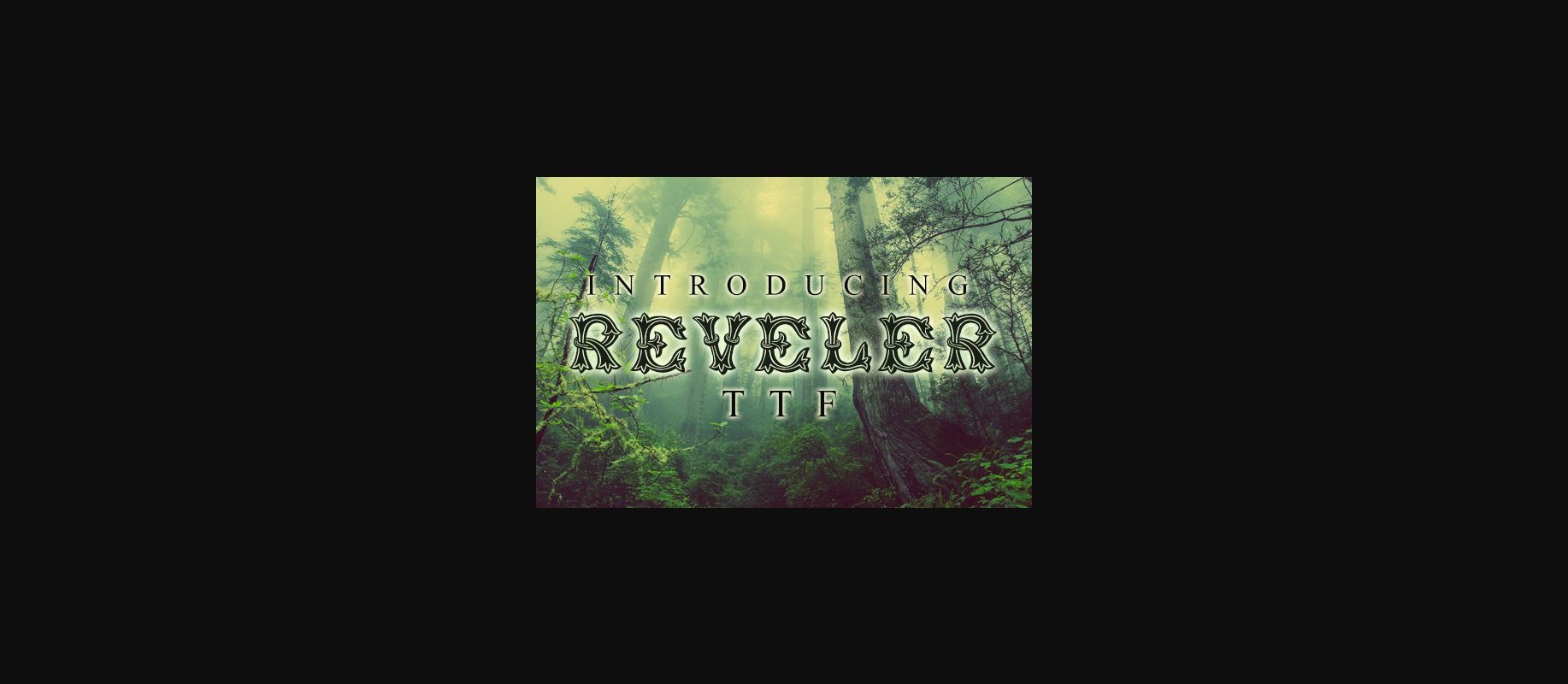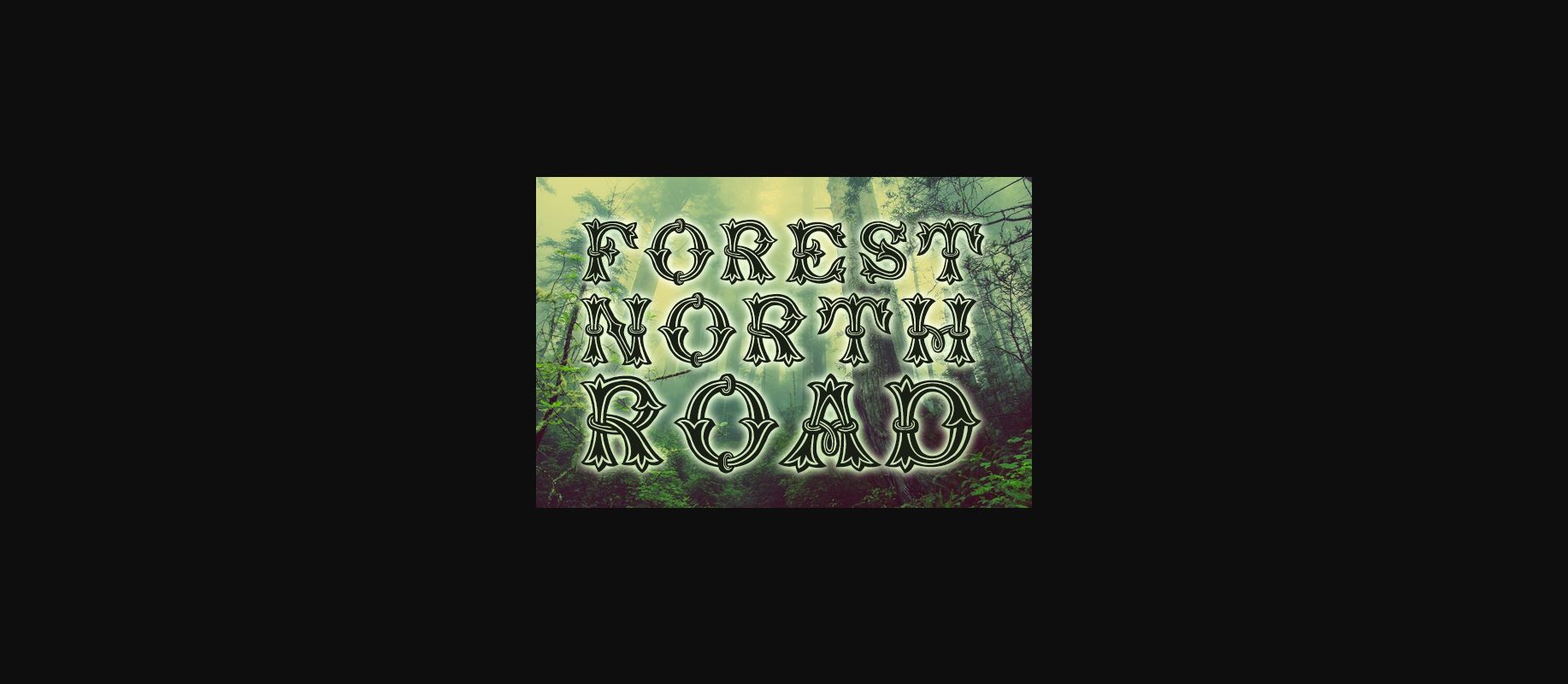
About Reveler Font
Reveler is an awesome retro decorative font with a nature theme. It will look stunning on every poster, banner or print. Add this font to your creative ideas and notice how it will make them stand out!